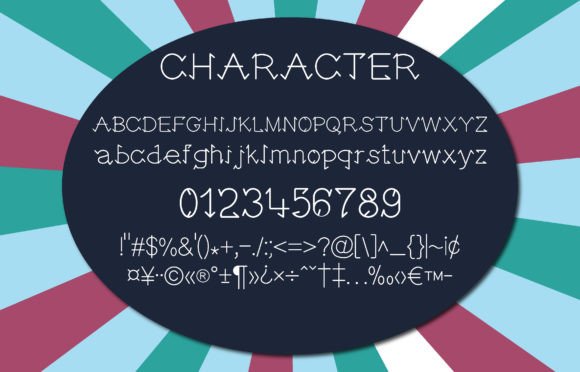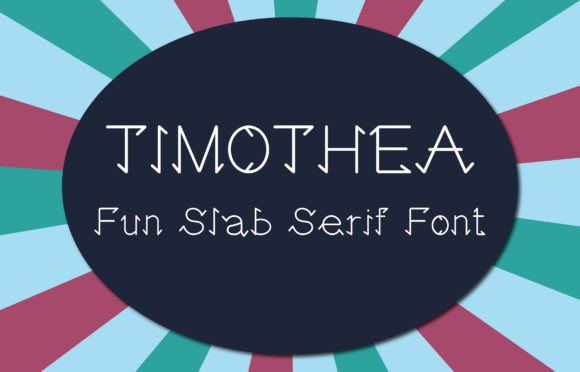
Timothea: A Friendly and Fun Slab Serif Font
Timothea is a friendly and fun slab serif font perfect for any project. This attractive typeface looks cute, friendly, and fun, making it versatile for various applications. Whether you’re using it for crafts, digital design, presentations, or creating greeting cards, Timothea is a super fun and charming font that goes anywhere!
Key Features of Timothea
- Friendly Design: Offers a welcoming and approachable look.
- Fun Aesthetic: Brings a playful and cheerful vibe to designs.
- Slab Serif Structure: Features distinctive serifs that add character while maintaining a cute appearance.
- Versatile Application: Suitable for a wide range of projects, from crafts to digital designs.
Best Uses for Timothea
Timothea’s unique characteristics make it particularly well-suited for:
- Charming craft projects
- Playful digital designs
- Eye-catching presentations
- Delightful greeting cards
- Fun social media graphics
- Cheerful branding for child-oriented businesses
- Engaging educational materials
When using Timothea in your designs, keep these tips in mind:
- Use for headlines or short text to showcase its friendly and fun style.
- Try different sizes to highlight the font’s cute features.
- Pair with simpler sans-serif fonts for body text to create contrast.
- Experiment with colors to enhance its cheerful appearance.
To sum up, Timothea is a great choice for designers who want a friendly and fun slab serif font. Its versatility makes it perfect for a wide range of projects, from crafts to digital designs. Whether you’re creating greeting cards, designing presentations, or working on playful branding, Timothea offers the perfect blend of cuteness and charm.
Moreover, Timothea’s unique design allows it to shine in various contexts where a welcoming and cheerful look is desired. For instance, from craft projects to educational materials, this font can elevate your designs with its fun style. Also, its friendly yet readable appearance works well in projects that aim to create a positive and approachable atmosphere.
In conclusion, Timothea truly captures the essence of fun and friendliness in slab serif typography. Its ability to work well across different applications shows how versatile it can be for various creative needs. Therefore, for those wanting to add a touch of playful charm to their work, Timothea can enhance themed creations with its unique style. Ultimately, it’s an ideal choice for designers aiming to make a fun, friendly impact across a wide range of creative projects.